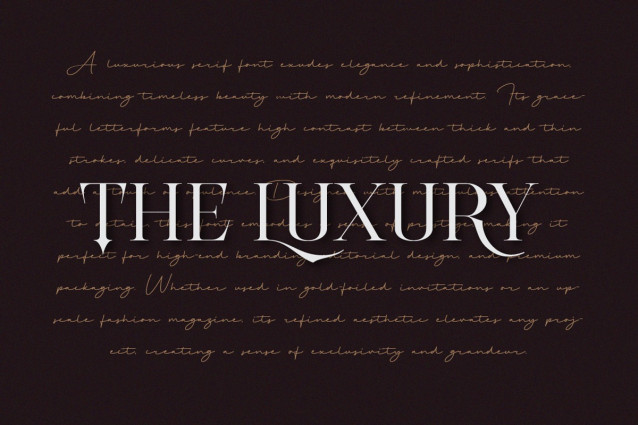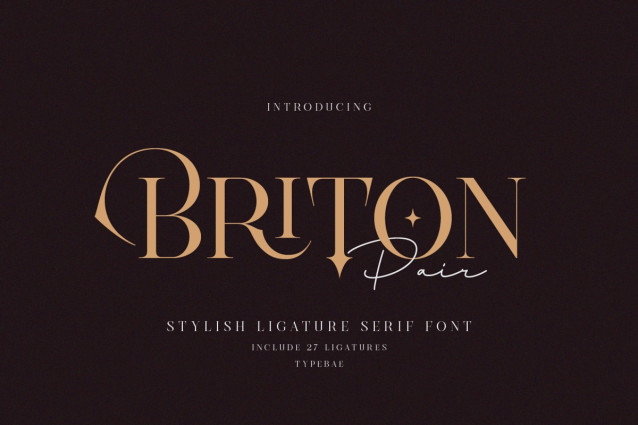
Briton Pair Font
Briton Pair Font is an elegant serif font with a luxurious touch, featuring 27 ligatures for smooth, stylish connections. Its refined details and modern flourishes make it perfect for branding, editorial design, and high-end projects.